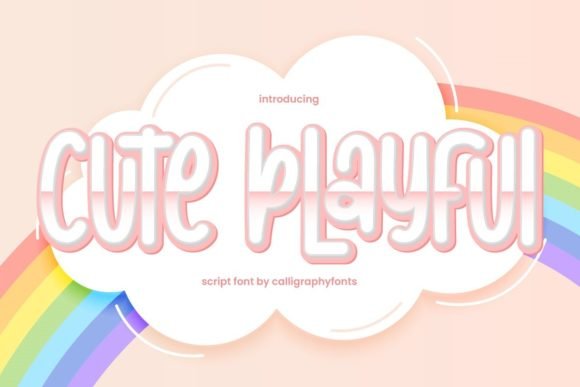
Introduction to Cute Playful Font
Cute playful is a fun and friendly display font, perfect for various creative projects.
This typeface is designed with a cartoon/ comic feel, and it is perfect for storybooks, magazines, children’s designs, and more This font is PUA encoded which means you can access all of the glyphs and swashes with ease.
Key Features of Cute Playful Font
Why Choose Cute Playful Font?
Cute Playful Font offers exceptional quality and versatility, making it a valuable addition to your design toolkit. Whether you’re creating for personal projects or commercial use, Cute Playful Font delivers professional results.